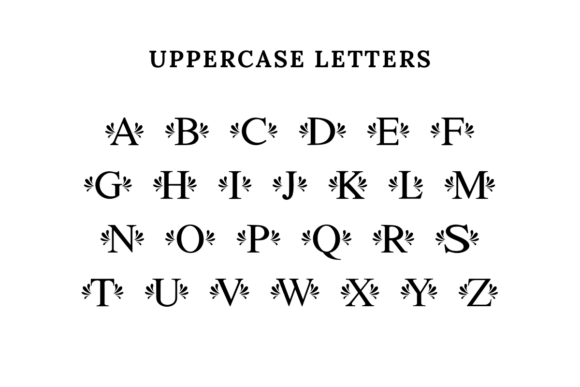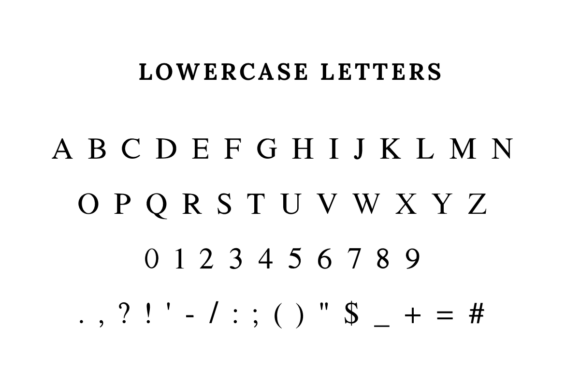
Mystic Monogram Font
Mystic Monogram is an elegant decorative font that blends classical serif charm with artistic flourish. Designed for monogramming, branding, wedding invitations, and upscale packaging, this font radiates refinement and grace. Its ornamental flair and timeless structure make it a standout for luxury-themed projects and boutique aesthetics.